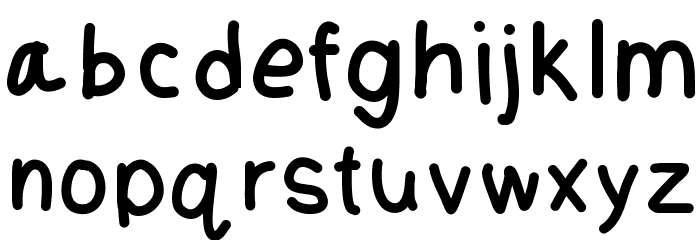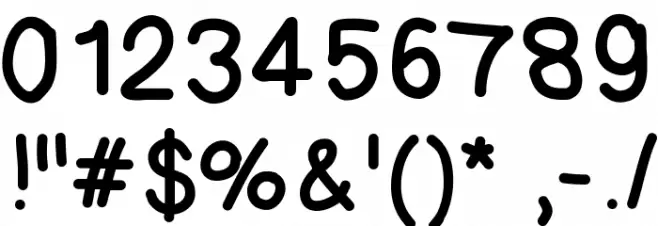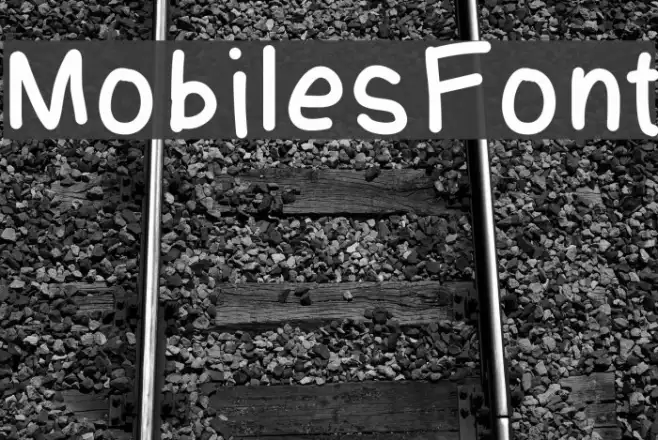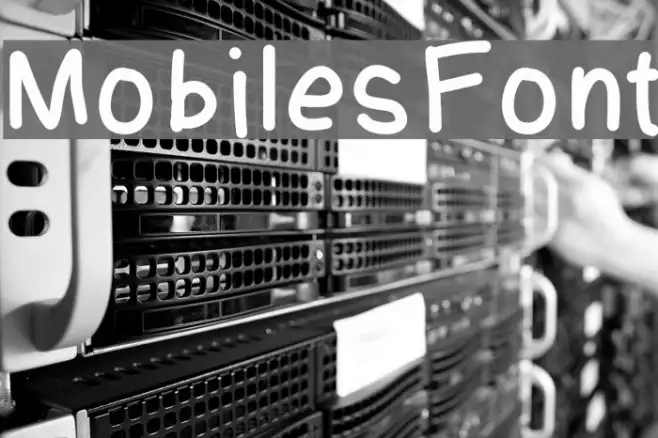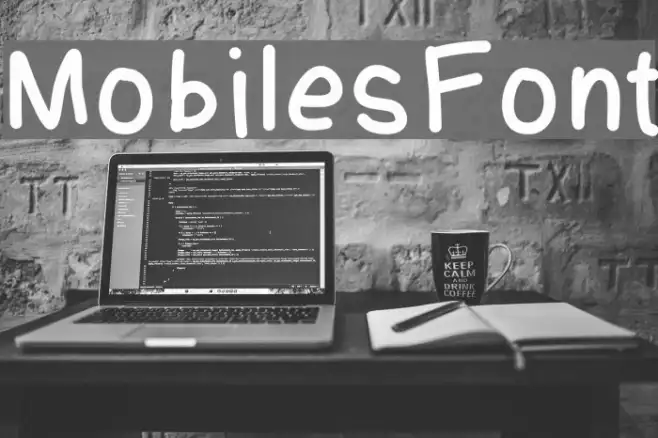
MobilesFont Font
This playful and casual font features rounded, slightly irregular characters that give it a handwritten feel. The letters are bold and have a consistent stroke width, contributing to a friendly and approachable appearance. The font includes both uppercase and lowercase letters, numbers, and a variety of special characters. Its informal style makes it suitable for projects that aim to convey warmth and creativity. The characters are well-spaced, ensuring readability while maintaining a relaxed aesthetic.
A playful, handwritten-style font with rounded, bold characters.
- Proposed Projects: Ideal for children's books, greeting cards, playful branding, and casual invitations.
- Overall Style: Casual
- Use Case: Logos, Headlines, Informal Text